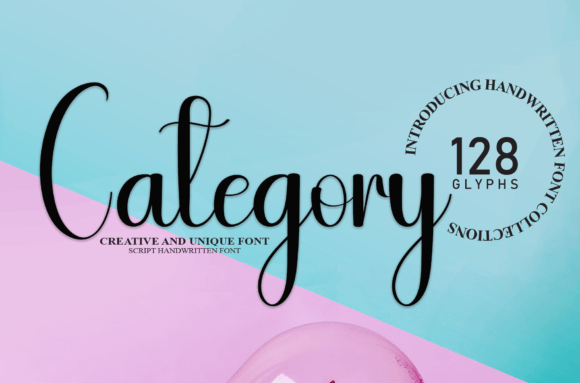
Adorn your designs with a touch of whimsy and charm using category, a captivating handwritten font family that exudes personality and warmth. meticulously created by William Jhorby, category offers a delightful blend of creativity and versatility that knows no bounds.
Immerse yourself in the world of Category, a font family that exudes sweetness and effortless charm. Each letter, meticulously designed by William Jhorby, carries within it a unique tale, allowing your designs to bloom with personality and reach the hearts of your audience.
Category is the perfect font for expressing creativity in your designs. With its delicate and fluid lines, category brings a touch of magic to every word. Effortlessly convey your message with the ease and grace of Category, allowing your words to dance upon the page, captivating the attention of your audience and leaving a lasting impression.
Category's versatility knows no bounds. Whether crafting wedding invitations, designing greeting cards, or creating any visual design that craves a dash of enchantment, Catherine is your font of choice. Its playful spirit adds a touch of joy, encouraging creativity, and inspiring innovation in your designs.
Category is a font family designed to make your designs sing. With its ability to elevate the beauty of your words and designs, category breathes life into your creative pursuits. Explore the realm of possibility, where artistry and inspiration blend harmoniously, allowing your designs to transcend the boundaries of the ordinary and attain a realm of extraordinary brilliance. Category is a font family that will take your designs to new heights, allowing your creativity to flourish like never before.